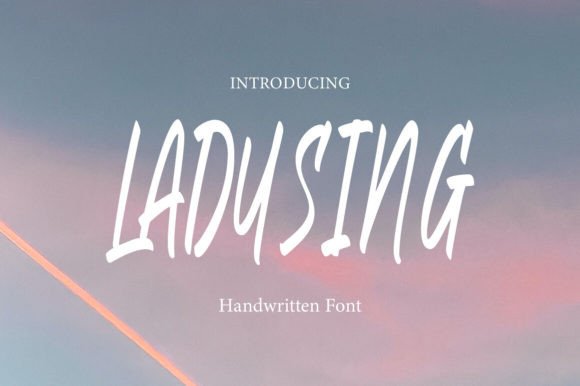
Behold the Ladusing font, an extraordinary creation by the visionary hand of gunaloe12, a true master of typography. This elegantly crafted script font exudes a timeless charm, effortlessly capturing the allure of handwritten characters. With its fluid strokes and graceful curves, Ladusing invites you to embrace the art of beautiful lettering, adding a touch of elegance and sophistication to your creative endeavors.
Step into a world where words dance with grace and emotion, where every letter tells a captivating story. Ladusing's enchanting script whispers tales of love, joy, and heartfelt connections, making it the perfect choice for personal projects that demand a touch of intimacy and authenticity. From heartfelt letters to cherished mementos, Ladusing transforms your words into visual treasures, leaving an indelible mark on the hearts of those who behold them.
Unleash your creativity and embark on a typographic journey like no other. Ladusing's versatility knows no bounds, effortlessly adapting to a symphony of design possibilities. From logos that exude timeless elegance to wedding invitations that radiate romance, this font breathes life into your vision, transforming ordinary words into extraordinary works of art.
Experience the allure of a font that captures the essence of handwritten elegance, a font that whispers sophistication and inspires awe. Ladusing is not merely a collection of letters; it is an artistic expression that elevates your designs to new heights of beauty and distinction.